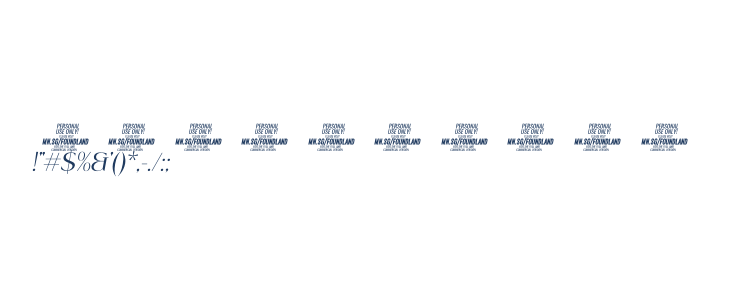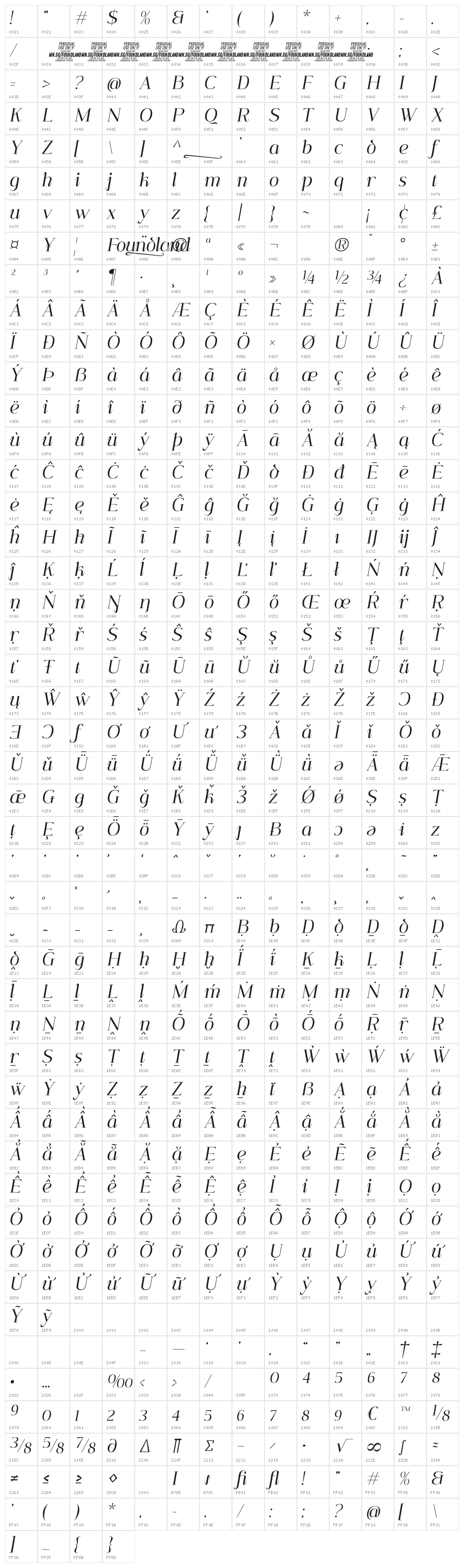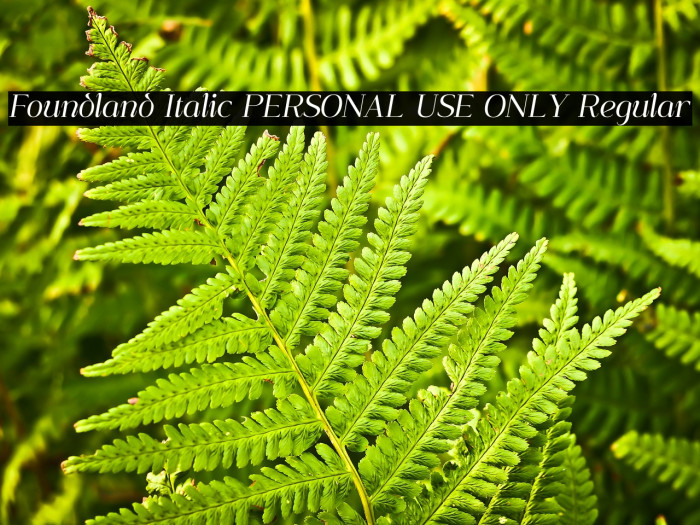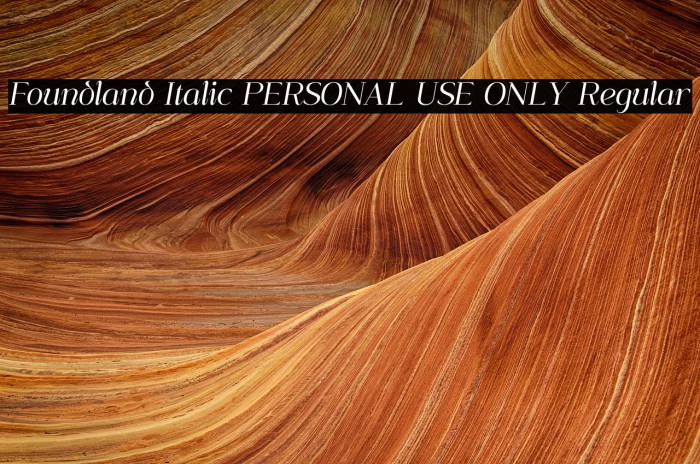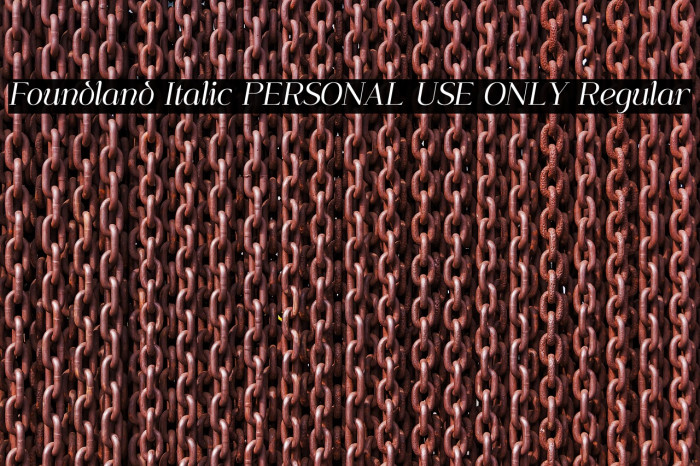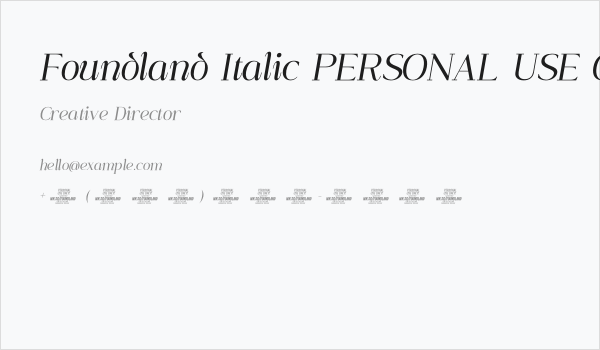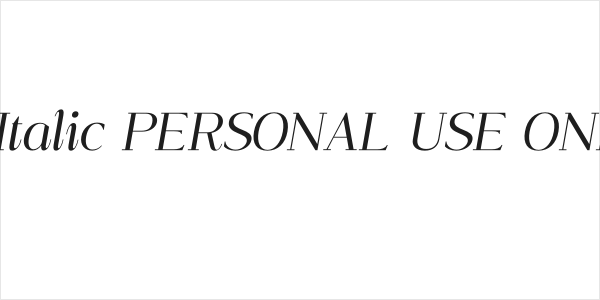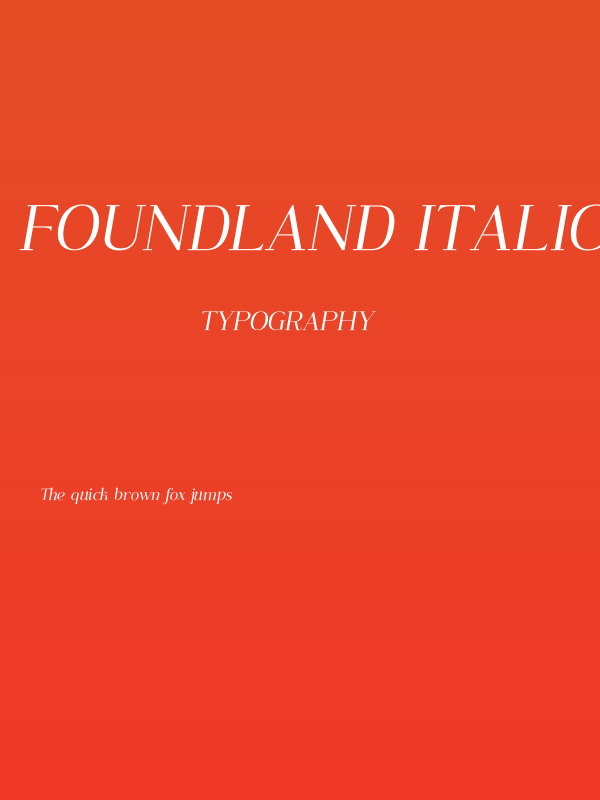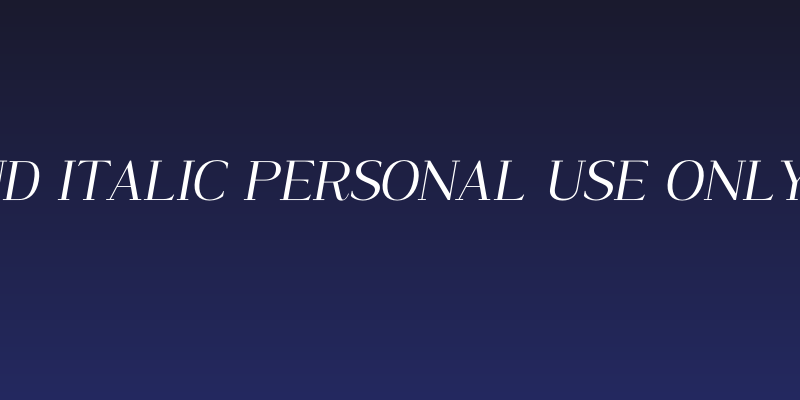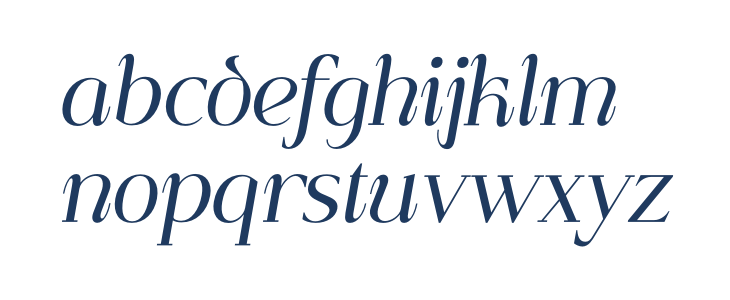
Foundland Italic PERSONAL USE ONLY Regular Font
Foundland Italic PERSONAL USE ONLY Regular Description
This elegant and sophisticated font features a distinct italic style with a refined, flowing appearance. The characters are slightly slanted, giving a sense of movement and grace. The uppercase letters are tall and slender, while the lowercase letters maintain a consistent style with smooth curves and delicate serifs. The numerals and special characters complement the overall aesthetic, providing a cohesive look. The font's design is both classic and modern, making it versatile for various applications.
| Proposed Projects | Ideal for wedding invitations, elegant branding, fashion magazines, and luxury product packaging. |